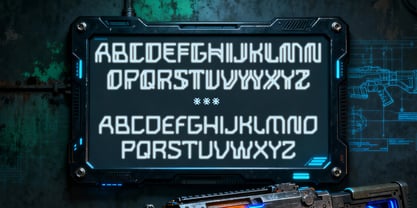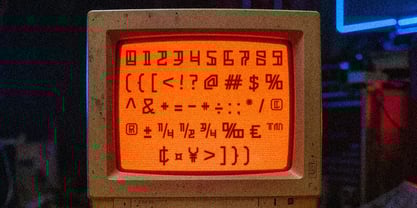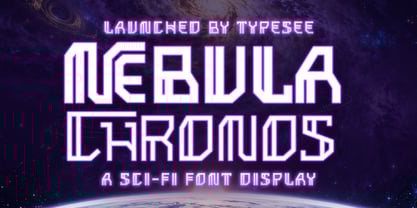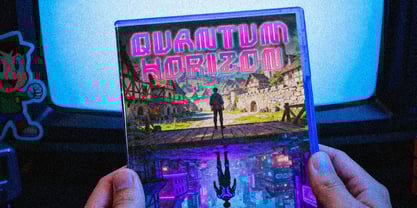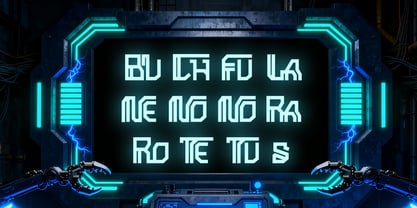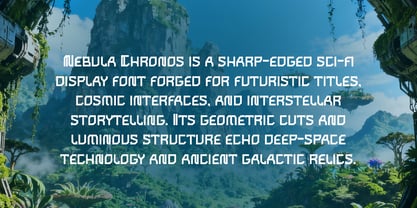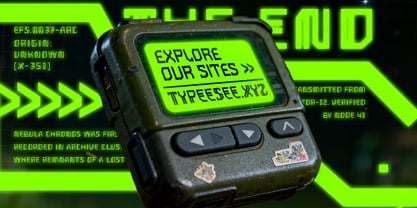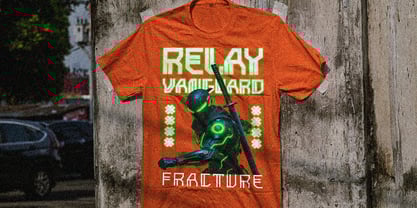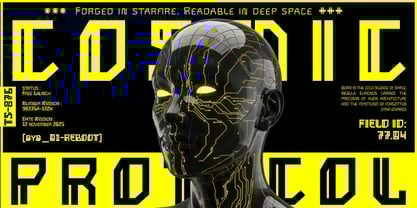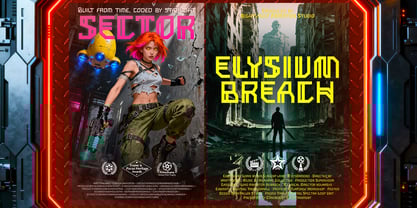
Nebula Chronos
Die Schriftfamilie Nebula Chronos wurde von Rizka Prayuda, Muhammad Mirza Azhmi entworfen und von Typesee veröffentlicht. Nebula Chronos enthält 3 Stile und Familienpaketoptionen. Mehr über diese Familie
Nebula Chronos is a cutting edge sci-fi display font designed to bring the aesthetics of deep-space exploration and advanced technology straight into your creative projects. Featuring sharp geometric forms, luminous line cuts, and cyber-inspired glyphs, this typeface evokes the feel of alien alphabets, futuristic weapon interfaces, and holographic control panels. Whether you’re designing game UI, sci-fi movie titles, tech branding, or digital posters, Nebula Chronos offers a striking, modern look that stands out in any futuristic environment. The font includes uppercase letters, alternates, numbers, and a full set of sci-fi themed symbols crafted to deliver maximum impact and readability in high-energy visual designs. Bring your concepts to a new dimension and elevate your visuals with the bold, cosmic energy of Nebula Chronos.
Designer: Rizka Prayuda, Muhammad Mirza Azhmi